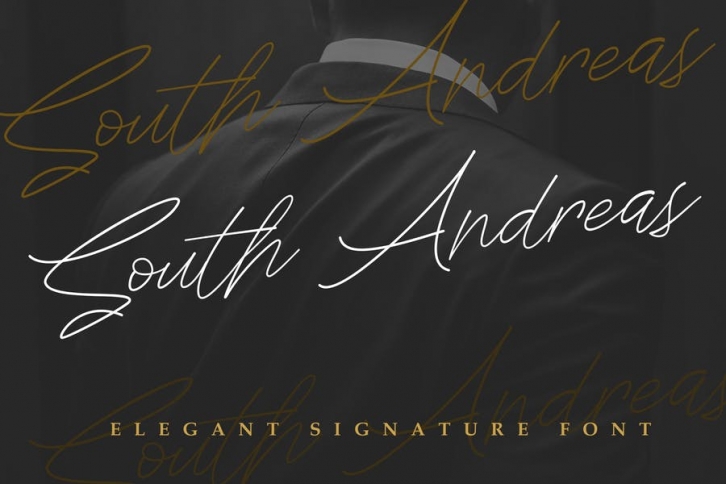
Soouth Andreas is modern script that perfect for photography, signature, branding. It is so beautiful and classy, simple and elegant.
FEATURES :
- Stylistic Alternate
- Swash
- Contextual Alternate